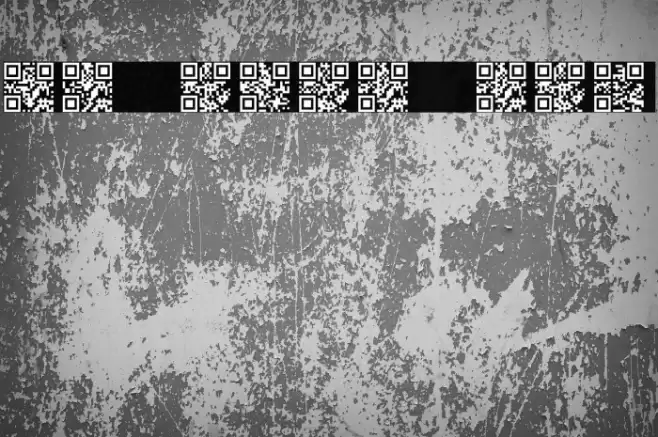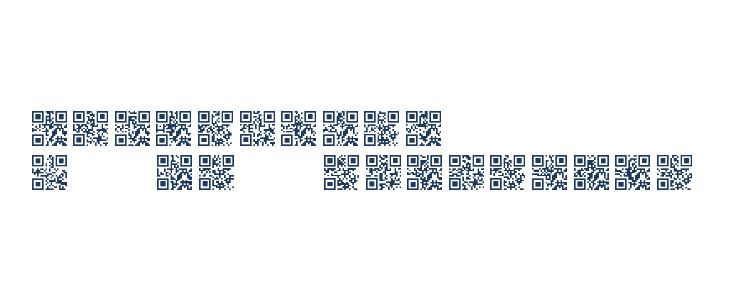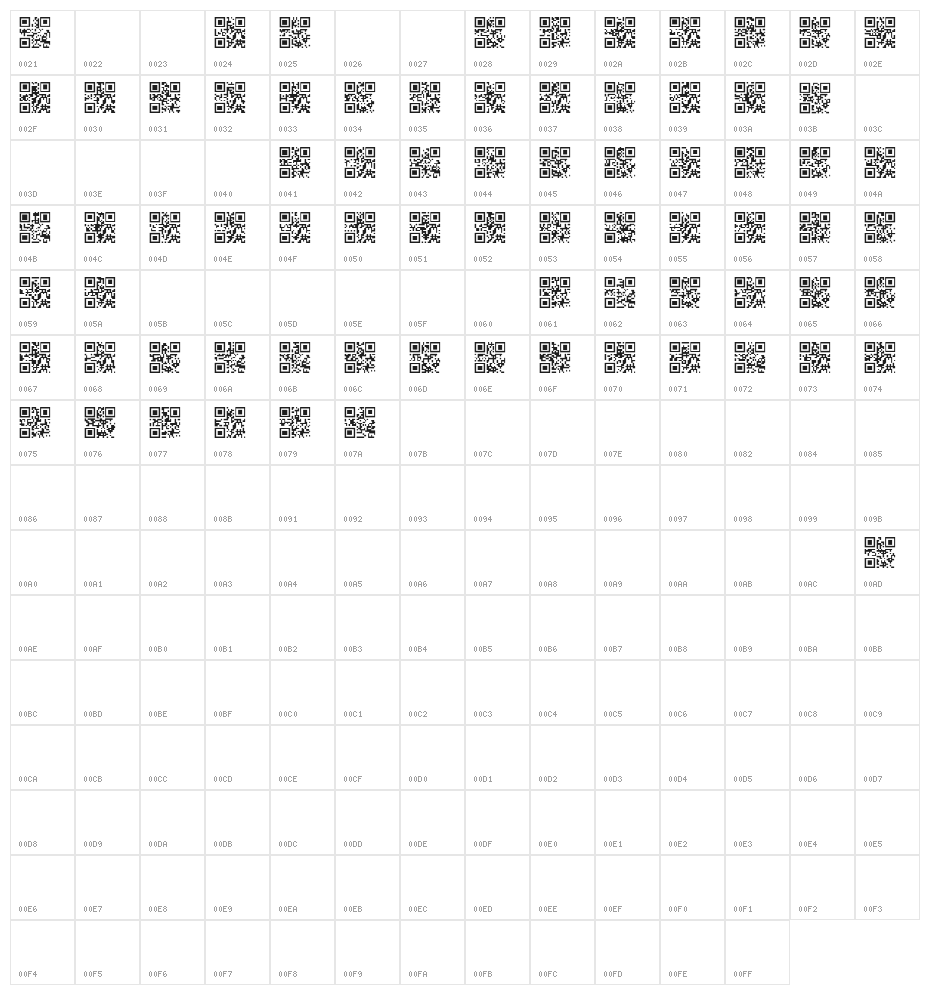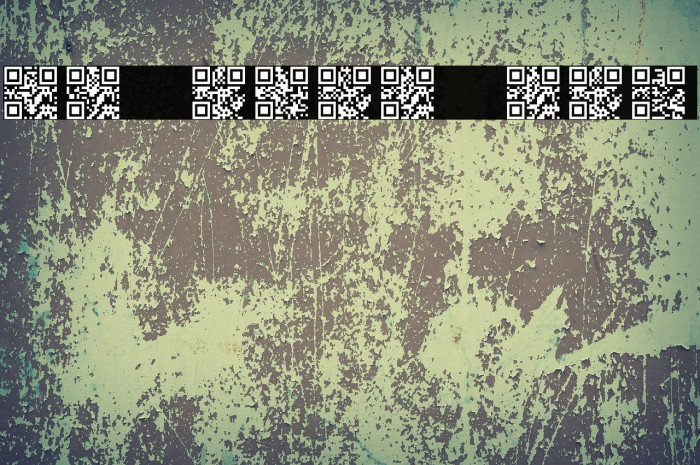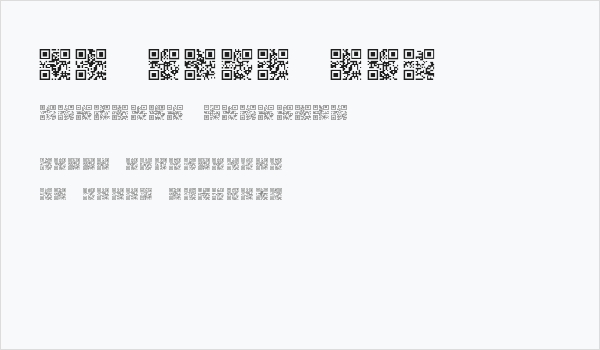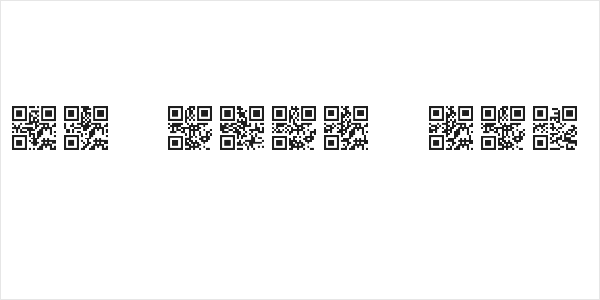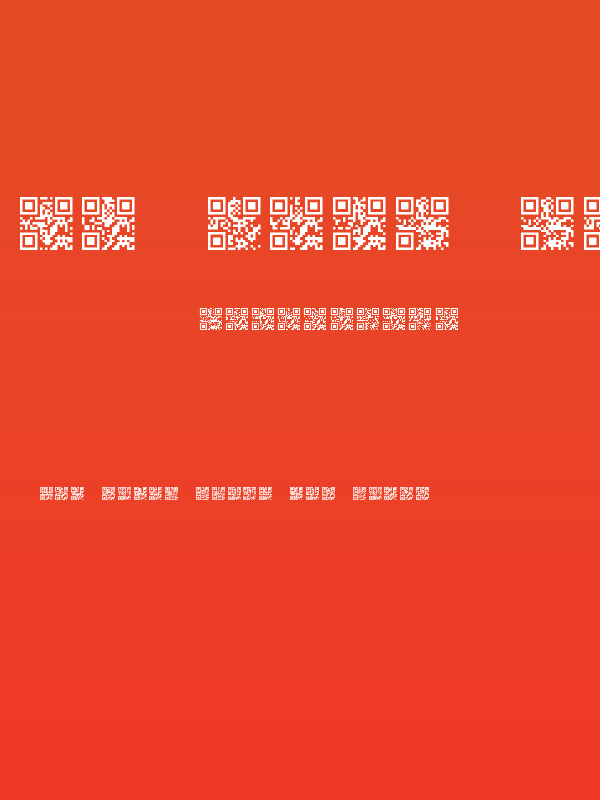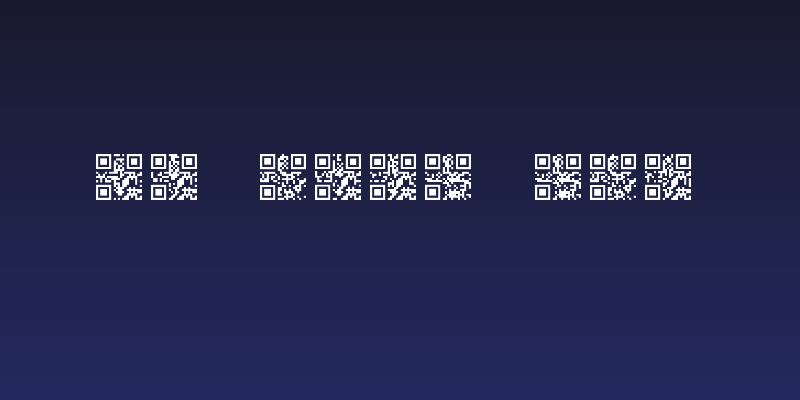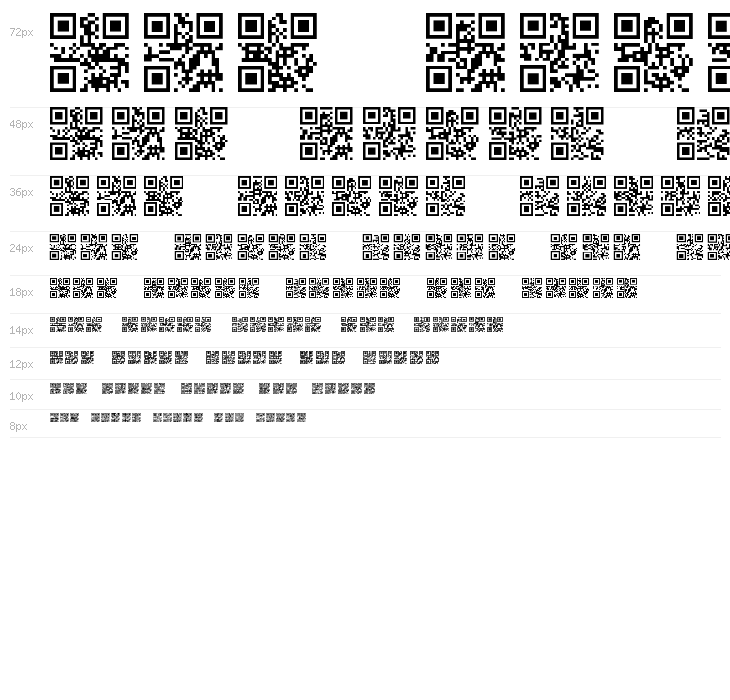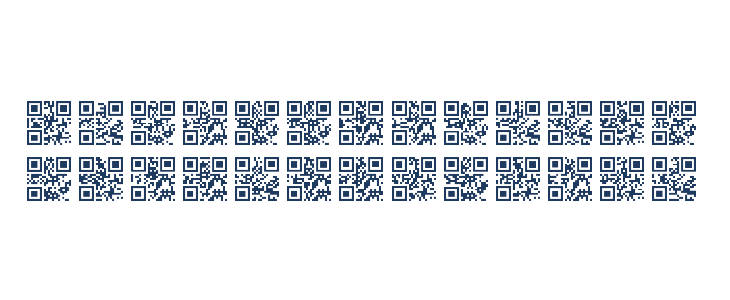
QR font tfb Font
QR font tfb Description
A highly decorative font where each character is represented as a unique QR code-like glyph, composed of dense, square, pixelated patterns. The design is geometric and abstract, with uniform sizing and spacing, creating a digital, encoded appearance.
A display font mimicking QR codes for each character from Uncategorized fonts.
- Proposed Projects: Tech branding, futuristic posters, digital art, puzzles, escape room graphics, novelty merchandise.
- Overall Style: Decorative, Futuristic, Digital
- Use Case: Logos, Posters, Display text, Themed events, Art installations